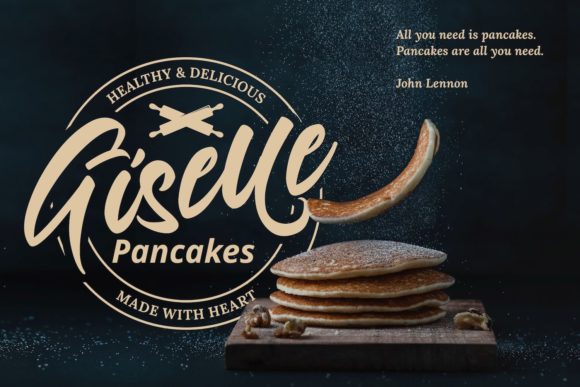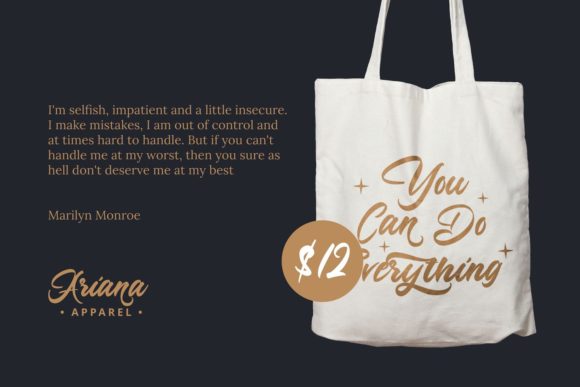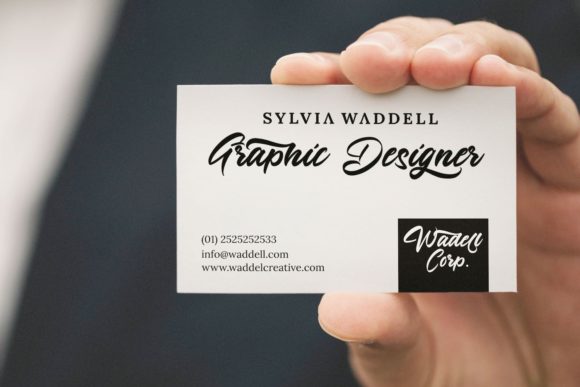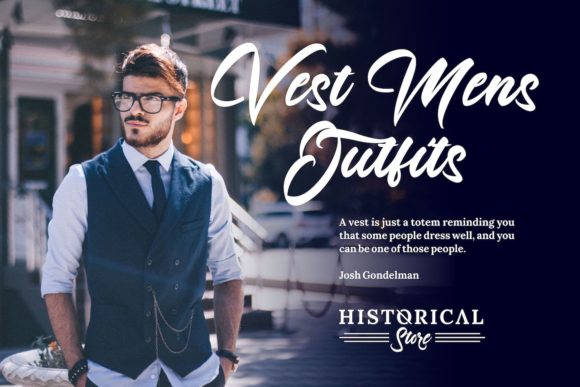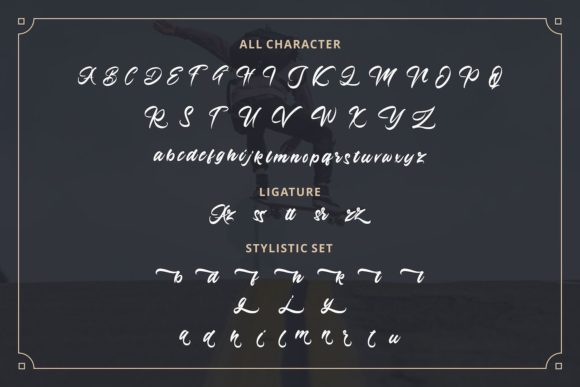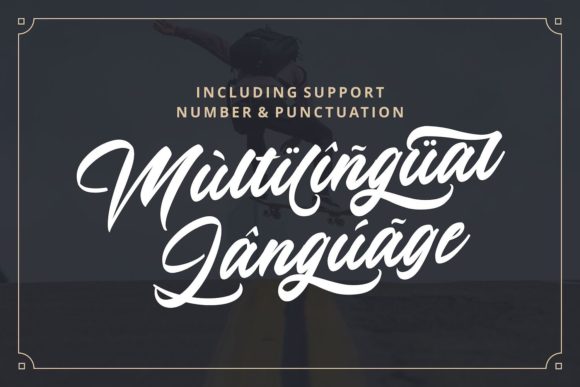
Azingdar Font
About Azingdar Font
Azingdar feels playfully nostalgic and delivers an incredible vintage aesthetic. It will elevate a wide range of design projects to the highest level, be it branding, headings, wedding designs, invitations, signatures, logos, labels, and much more!
This font is PUA encoded which means you can access all of the glyphs and swashes with ease! It also features a wealth of special features including alternate glyphs and ligatures.